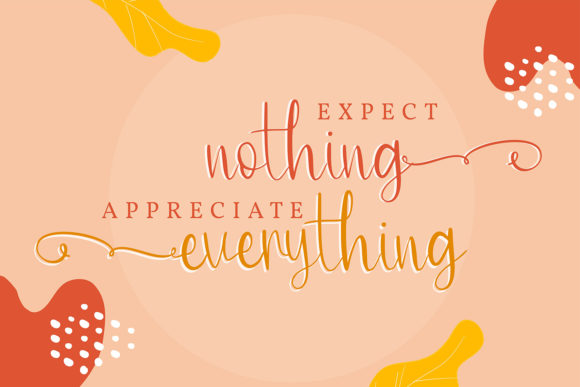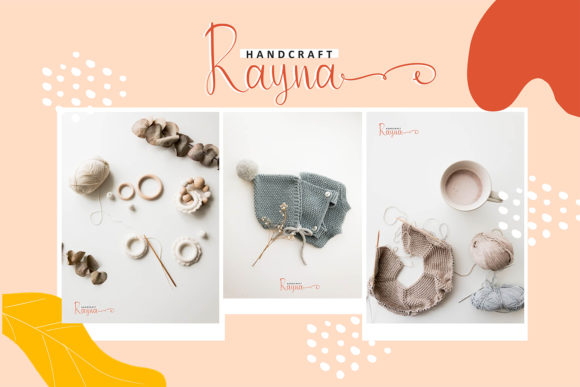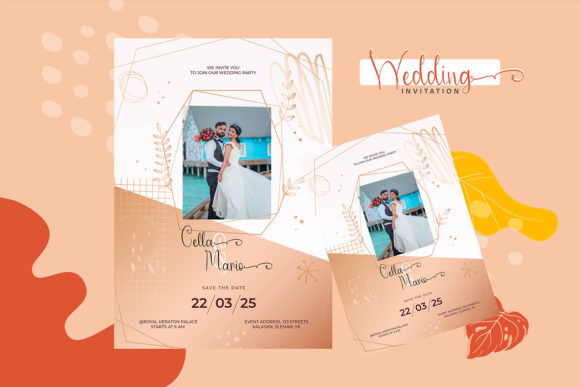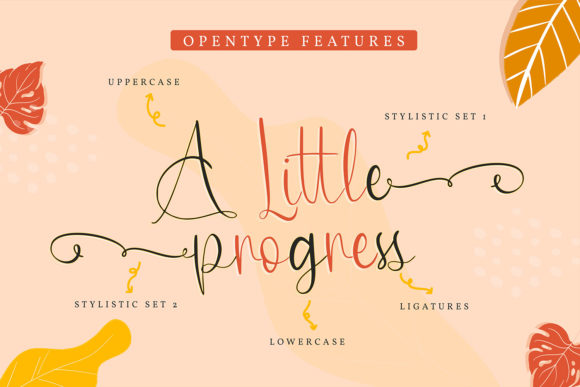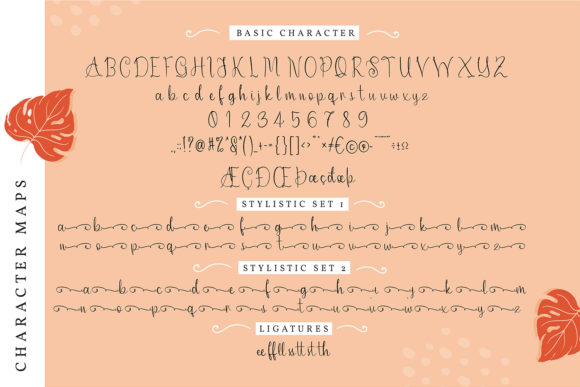
About Zallenya Font
Zallenya is a romantic and thin calligraphy typeface with characters that dance along the baseline. This font is PUA encoded which means you can access all of the glyphs and swashes with ease! Have fun with this beautiful font and explore its endless variations.